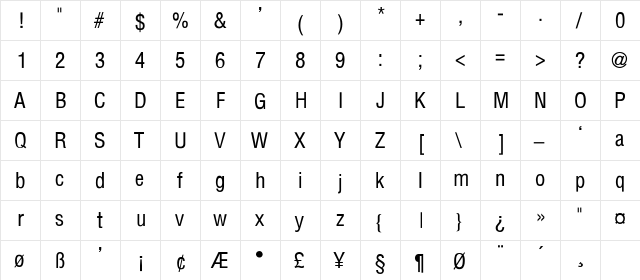
Partridge-Condensed-Thin Regular
Design Context for Partridge-Condensed-Thin Typeface
Partridge-Condensed-Thin is a composed and adaptable typeface that performs quietly and consistently across a wide range of design contexts. The delicate stroke weight brings airiness and refinement to layouts. The condensed width makes it efficient for tight spaces without sacrificing legibility.
Pro Tip: Use Partridge-Condensed-Thin in both headline and body roles to test its range before committing to a single application.